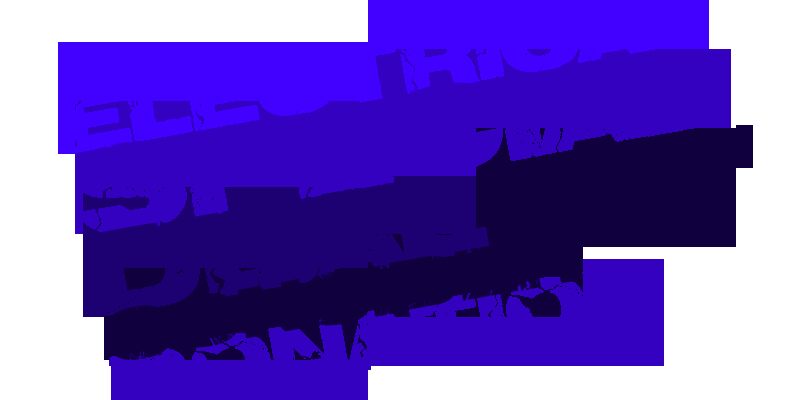
Electrical by Max Infeld of Xerographer.com is a free eroded display font with broad, forceful capitals. Jagged fissures spread through the dense letters like cracks in stone or damaged concrete. The uneven breaks vary across each form, giving the alphabet a convincingly fractured surface.
Disaster, industrial decay, and dystopian themes suit its damaged texture. It fits album covers, game graphics, and event posters. In magazine design, the cracked lettering can become part of accompanying ruin imagery.